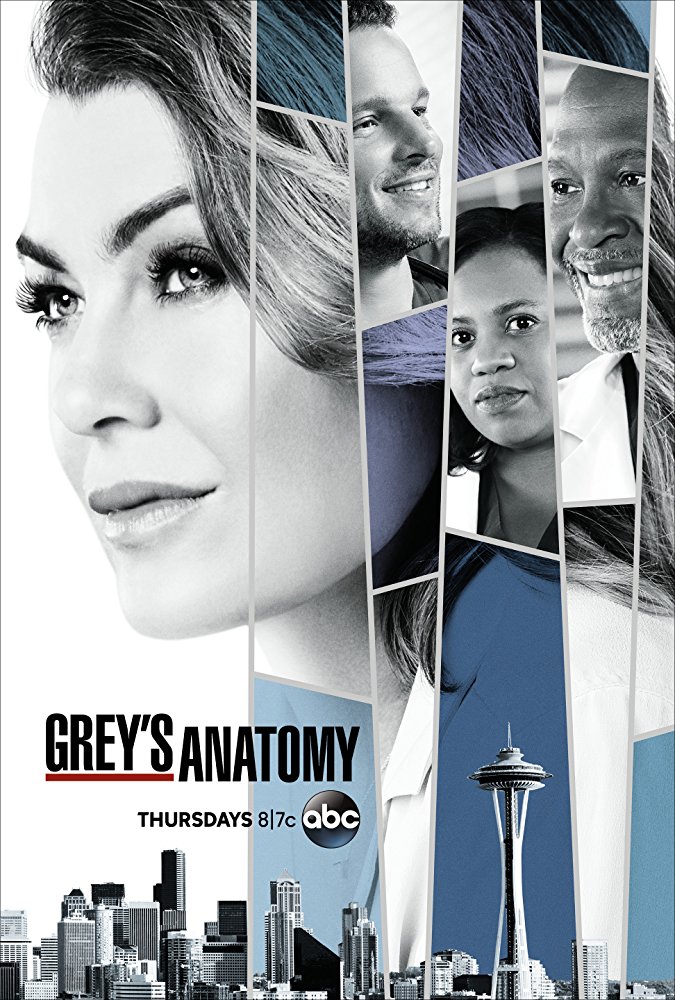
Grey's Anatomy Font
DramaGrey’s Anatomy is a medical drama television series that follows the lives and careers of surgical residents, attending physicians and their mentors at a Seattle hospital.
The font used for the TV title on the poster is similar to Helvetica Ultra Compressed font. For a free alternative, see Billy Argel's Asphaltic Grain, which is a somewhat eroded version of the same font available for download in the Fonts Used Section.